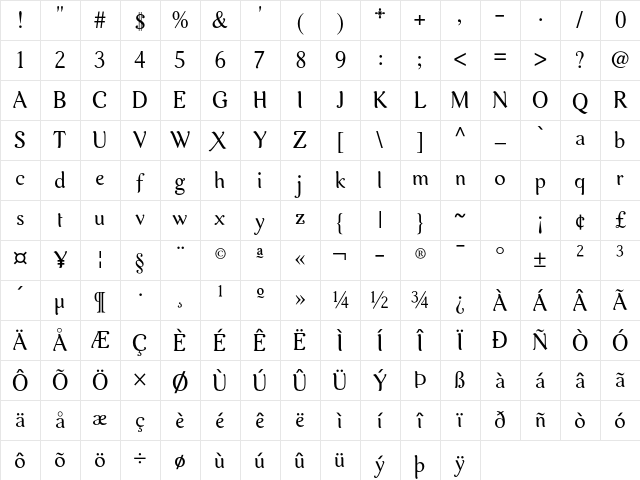
Aurelis ADF No2 Std Regular
Foundry: Arkandis Digital Foundry.
Designer: Hirwen HARENDAL
Design Context for Aurelis ADF No2 Std
Aurelis ADF No2 Std is a composed and adaptable typeface that performs quietly and consistently across a wide range of design contexts.